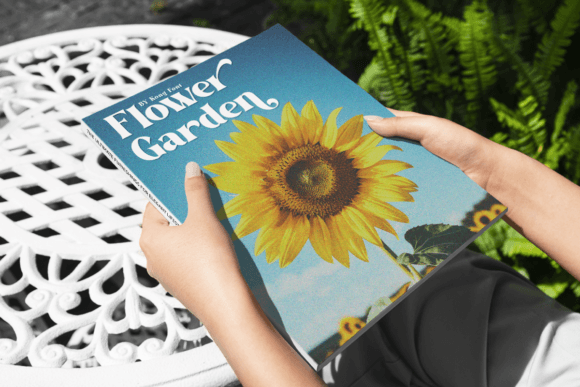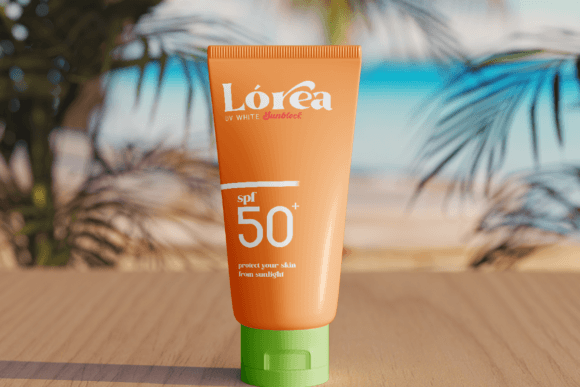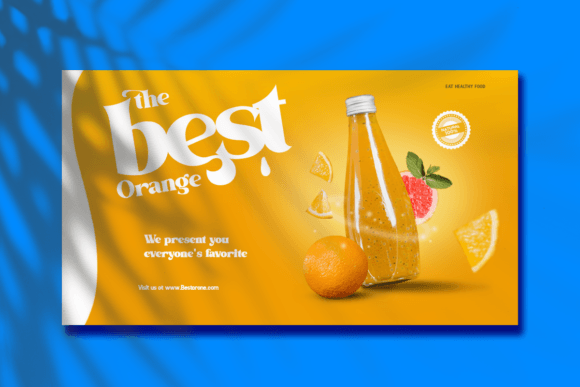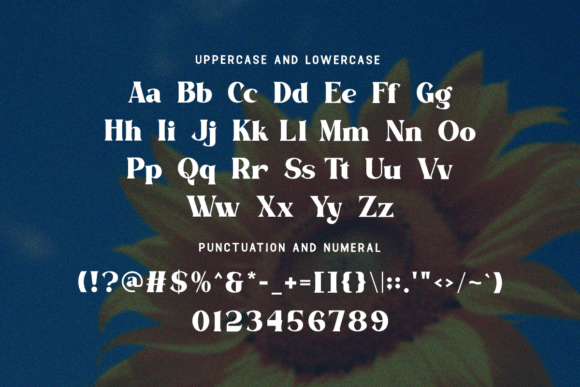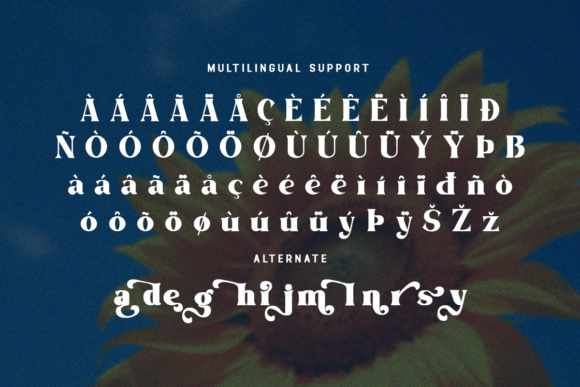
Introducing Daylight Font: A Refined and Elegant Typeface for Modern Design
In the world of typography, a good font can make all the difference in the success of a design project. A well-crafted typeface can elevate your brand, add sophistication to your editorial design, and make your marketing materials stand out. If you’re a designer or crafter looking for a refined and elegant font to take your projects to the next level, look no further than Daylight Font. Specifically, Daylight Serif Font is a beautiful typeface that combines classic charm with modern versatility, making it perfect for a wide range of applications.
Classic Charm Meets Modern Versatility
Daylight Serif Font boasts smooth curves and a sophisticated design that exudes warmth and elegance. Its refined features make it an excellent choice for projects that require a touch of sophistication, such as branding, editorial design, packaging, and invitations. Whether you’re creating a logo, designing a book cover, or crafting stylish marketing materials, Daylight Serif Font brings a timeless and polished look to any project.
Perfect for Digital and Print Use
One of the standout features of Daylight Serif Font is its versatility. This font is designed to perform well in both digital and print environments, making it an excellent choice for designers who work across multiple mediums. For digital use, Daylight Serif Font is clear and legible, even at small sizes, ensuring that your online content looks professional and polished. For print use, the font’s smooth curves and elegant lines make it perfect for high-end applications, such as luxury brand packaging, book covers, and fine art prints.
PUA Encoded for Easy Access to Glyphs and Swashes
Daylight Serif Font is PUA (Private Use Area) encoded, which means that you can access all of the cute glyphs and swashes with ease. This feature makes it easy to add decorative touches to your designs, taking them from ordinary to extraordinary. With PUA encoding, you can unlock the full creative potential of Daylight Serif Font and add a personal touch to your projects.
Applications for Designers and Crafters
So, what can you do with Daylight Serif Font? The possibilities are endless! Here are a few ideas to get you started:
- Branding: Use Daylight Serif Font to create a sophisticated logo or wordmark that sets your brand apart.
- Editorial Design: Add a touch of elegance to your magazine, newspaper, or book designs with Daylight Serif Font.
- Packaging: Use Daylight Serif Font to create luxurious packaging that reflects your brand’s high-end values.
- Invitations: Create beautiful, stylish invitations for weddings, parties, and other special events with Daylight Serif Font.
- Marketing Materials: Elevate your marketing materials, such as brochures, flyers, and posters, with the sophisticated look of Daylight Serif Font.
Why Choose Daylight Serif Font?
With so many fonts available, why choose Daylight Serif Font? Here are just a few reasons why this typeface stands out:
- Unique Blend of Classic and Modern: Daylight Serif Font combines the best of both worlds, offering a unique blend of classic charm and modern versatility.
- Elegant Design: The font’s smooth curves and sophisticated design make it perfect for projects that require a touch of elegance.
- Versatile: Daylight Serif Font performs well in both digital and print environments, making it an excellent choice for designers who work across multiple mediums.
- PUA Encoded: With PUA encoding, you can access all of the cute glyphs and swashes with ease, adding a personal touch to your designs.
In conclusion, Daylight Serif Font is a refined and elegant typeface that combines classic charm with modern versatility. With its smooth curves, sophisticated design, and PUA encoding, this font is perfect for designers and crafters looking to add a touch of sophistication to their projects. Whether you’re working on branding, editorial design, packaging, or invitations, Daylight Serif Font is an excellent choice. So why wait? Try Daylight Serif Font today and take your designs to the next level!